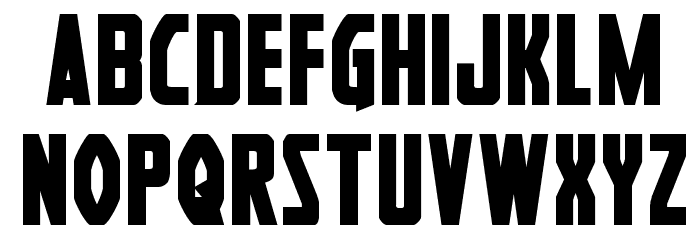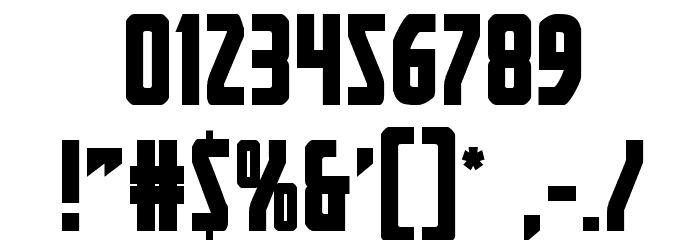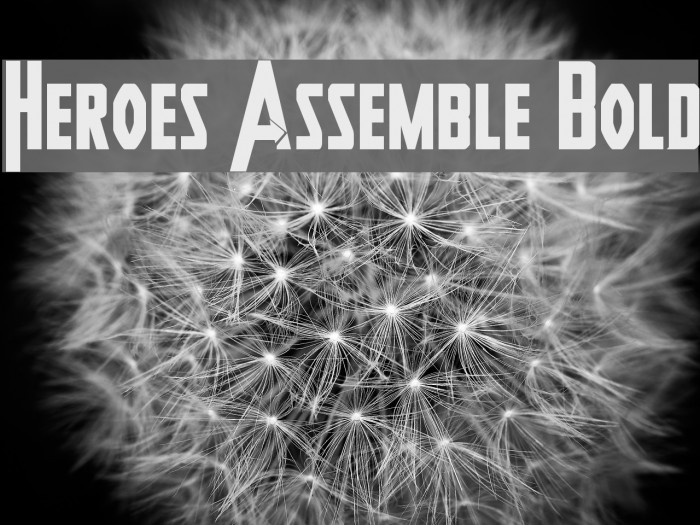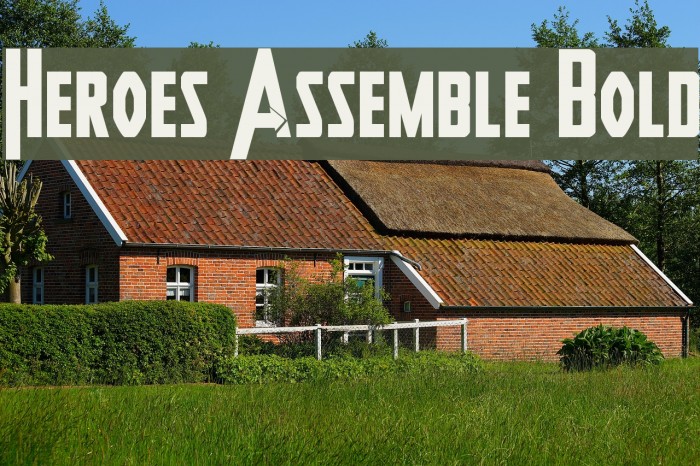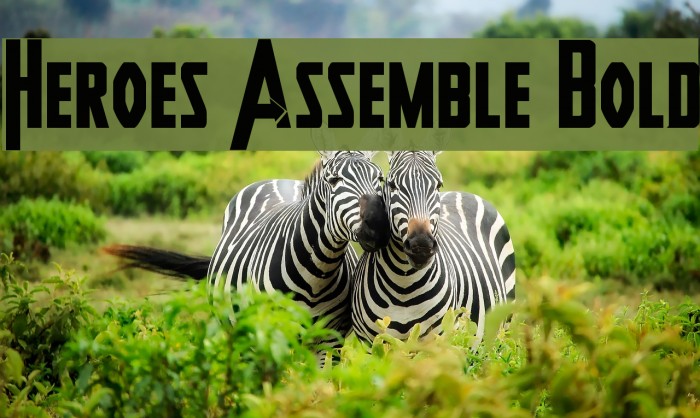
Heroes Assemble Bold Font
This bold, decorative font features strong, angular lines and a commanding presence. The uppercase letters are tall and imposing, with a geometric style that suggests strength and stability. The numbers and special characters maintain this robust aesthetic, making the font suitable for impactful designs. Its unique style is reminiscent of superhero themes, adding a sense of adventure and excitement. The font's boldness and distinctive character make it ideal for attention-grabbing headlines and logos.
A bold, angular font with a superhero-inspired, decorative style.
- Proposed Projects: Ideal for superhero-themed posters, comic book covers, movie titles, and branding that requires a strong, adventurous look.
- Overall Style: Modern, Decorative